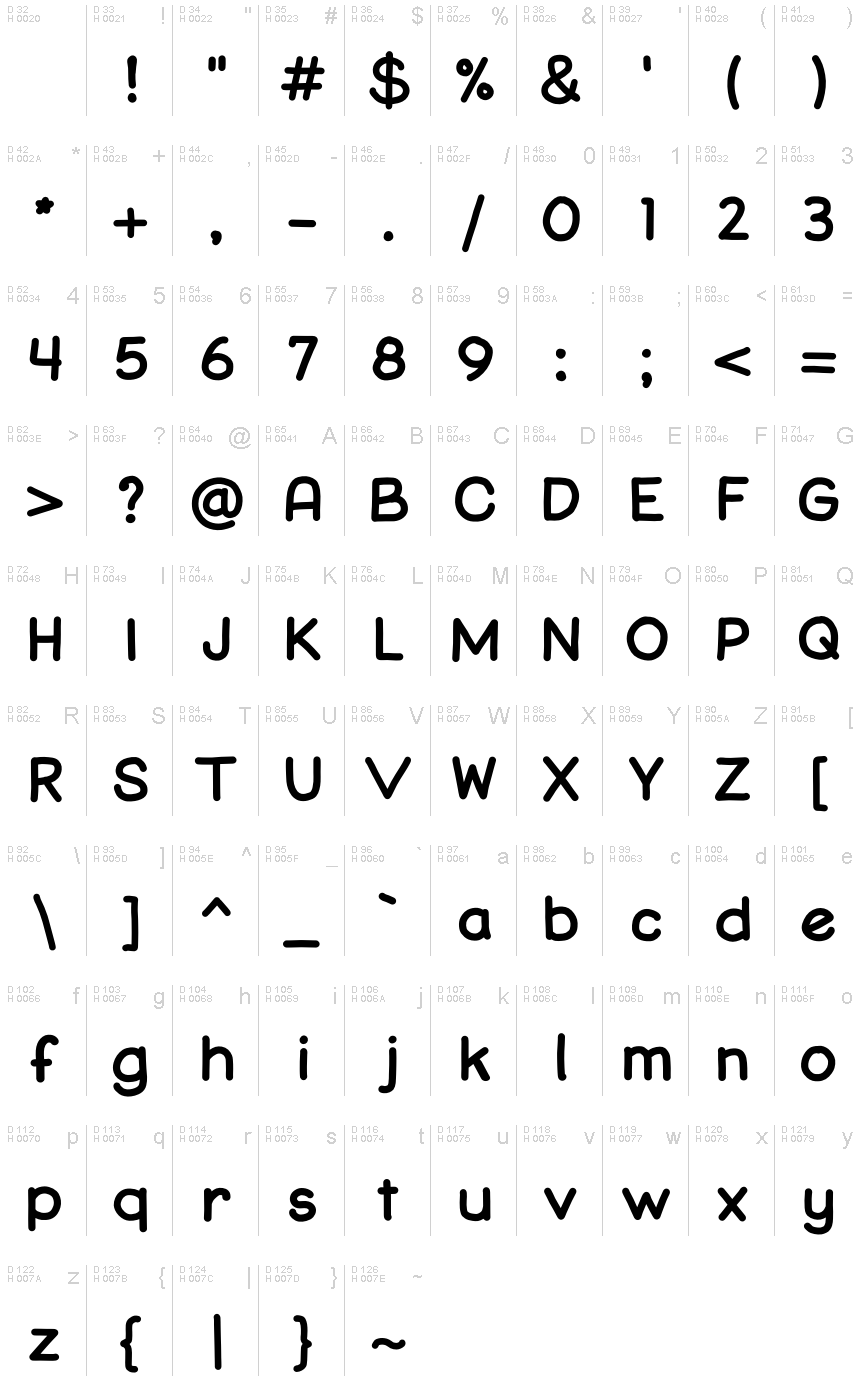
Pedagogique Medium Regular
Pedagogique is a captivating handwritten font that exudes a sense of warmth and authenticity. With its organic, free-flowing strokes and playful character shapes, this font emanates a distinct personality that immediately captures the viewer's attention. The irregular line widths and subtle imperfections lend a handcrafted charm, evoking a charming, artisanal aesthetic.
This versatile font can adapt seamlessly across a wide range of design applications, from editorial layouts and product branding to social media content and event materials. Its unique character can lend a distinctive, personalized touch to any project, making it a valuable asset in the designer's toolkit.